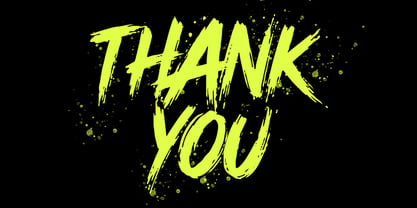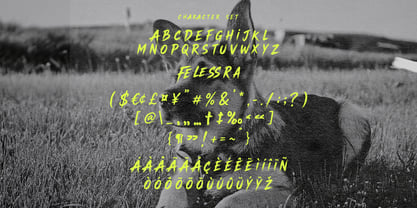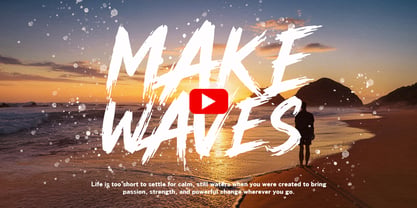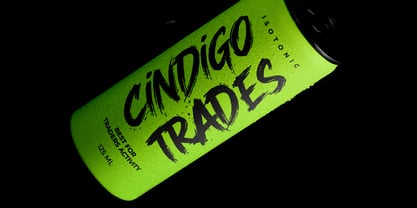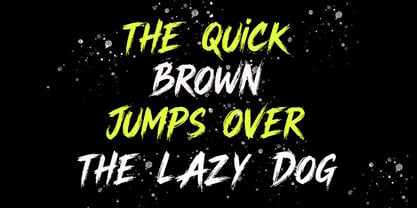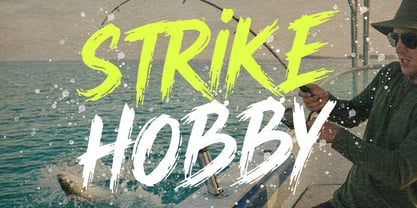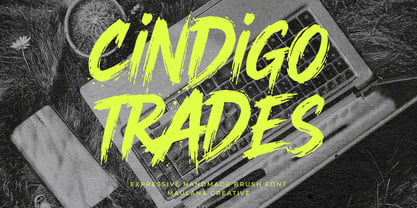
Cindigo Trades
by Maulana Creative
The Cindigo Trades Font Family was designed by Gilang Maulana and published by Maulana Creative. Cindigo Trades contains 1 styles. More about this family
Cindigo Trades is a dynamic, expressive handmade brush font crafted to bring raw energy and bold character to design projects. Featuring textured, dry-brush stroke details, this typeface captures an authentic, energetic aesthetic that immediately stands out. The natural, hand-drawn feel makes it ideal for creating powerful visuals that demand attention and leave a memorable impact.
Designed for versatility, this typeface excels in a wide range of creative applications, including sports branding, action-packed video thumbnails, poster designs, product packaging, and modern logos. Equipped with uppercase characters, numerals, punctuation, and multilingual support, Cindigo Trades offers both bold artistic expression and high readability across digital and visual media.
Designers: Gilang Maulana
Foundry: Maulana Creative